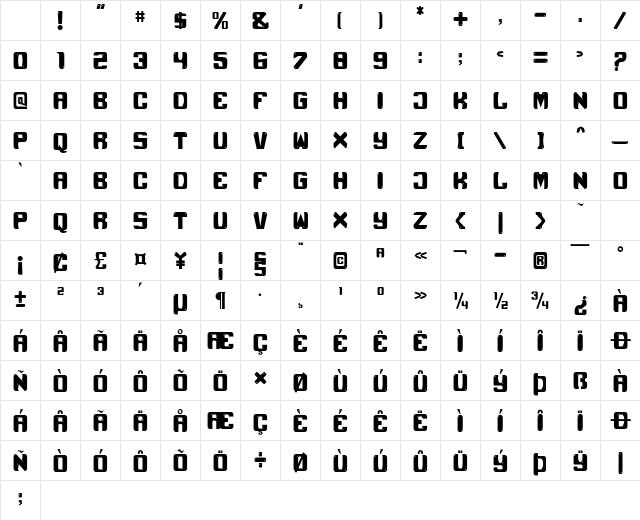
Complete Black Unicorn Regular glyph index. Displaying only characters natively supported by Black Unicorn Regular font.
Black Unicorn is a composed and adaptable typeface that performs quietly and consistently across a wide range of design contexts.